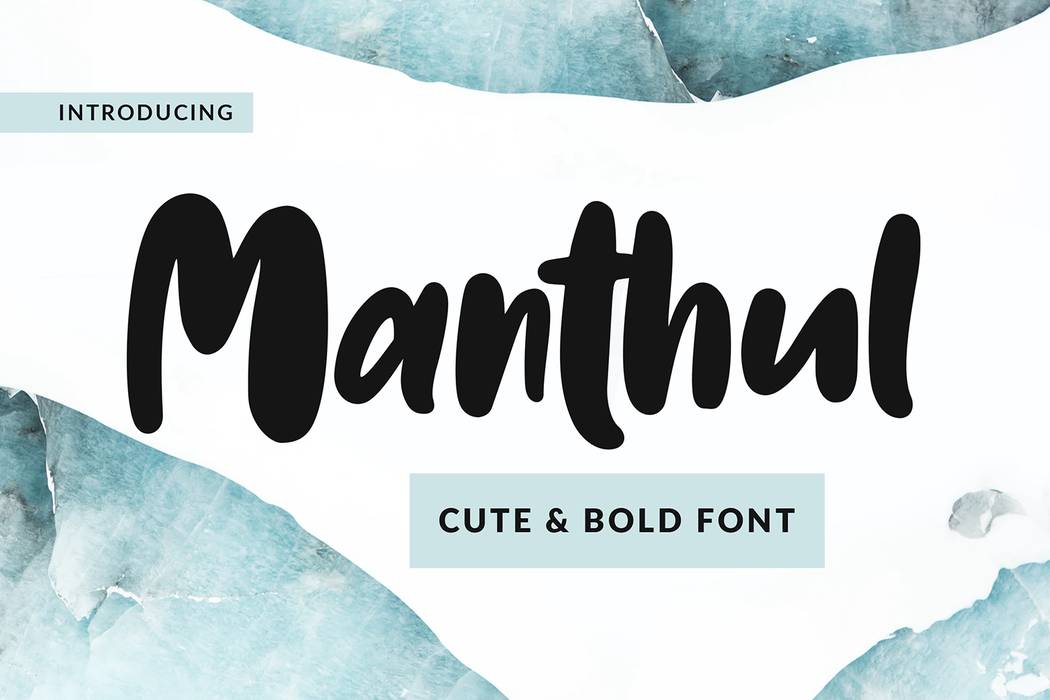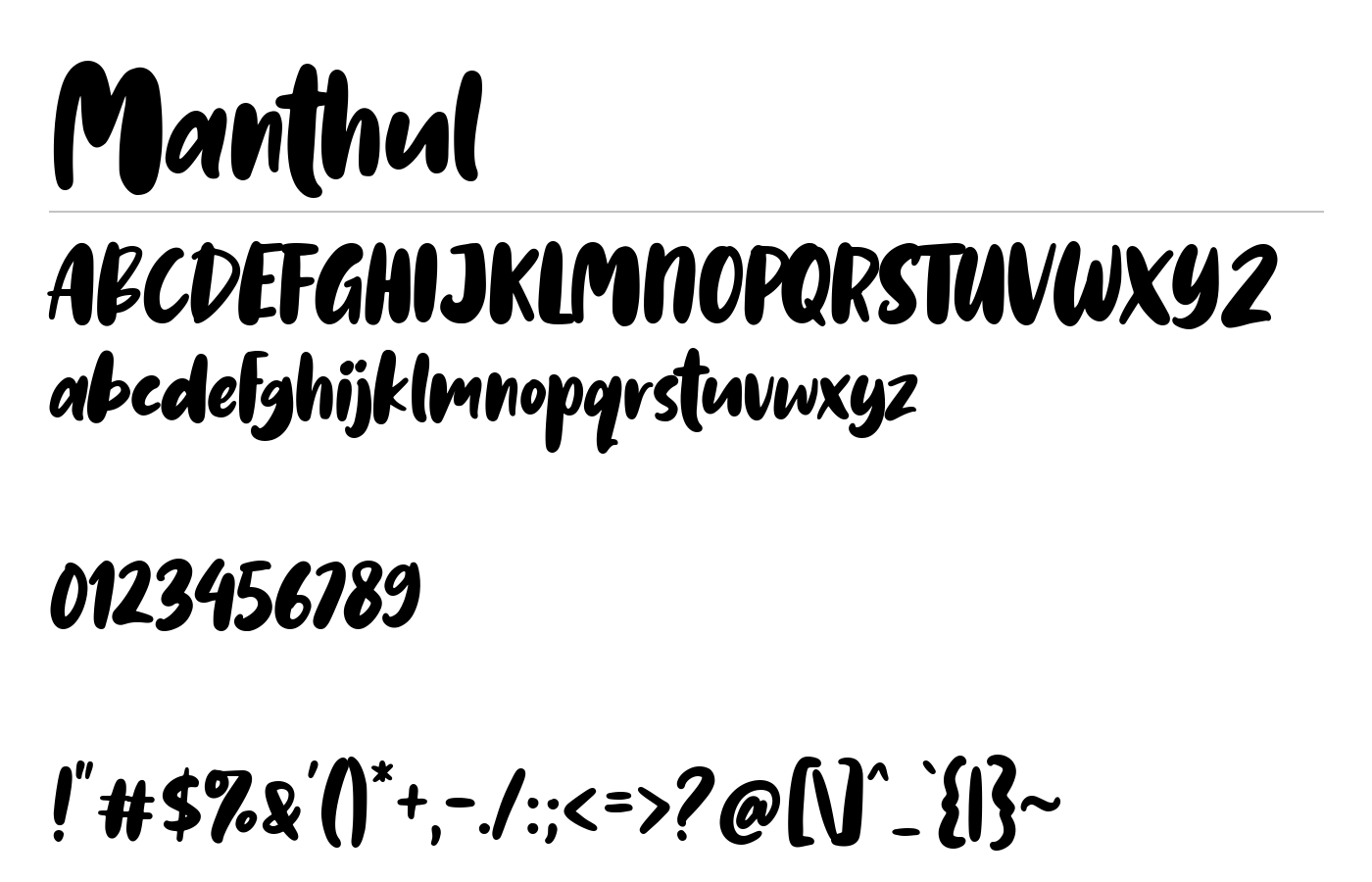
Manthul is a bold, playful script font with a friendly, hand-drawn feel that combines thick, rounded strokes and casual letterforms. Its vibrant style works beautifully for creative branding, logos, posters, and invitations where a lively, approachable personality is desired. This font is perfect for adding warmth and energy to designs that aim to be fun and engaging.
Manthul Font
About Manthul Font
| Font family | Manthul Font |
| Designer | Wahyu Andi |